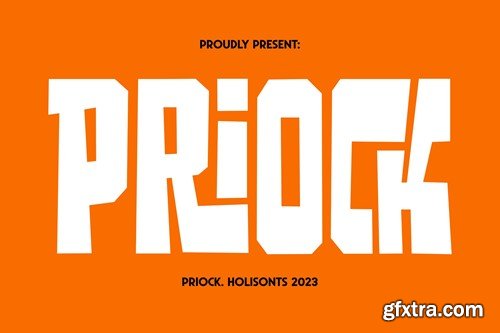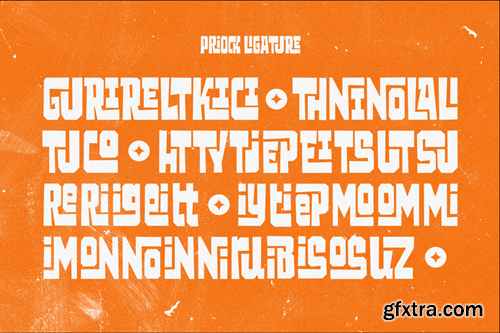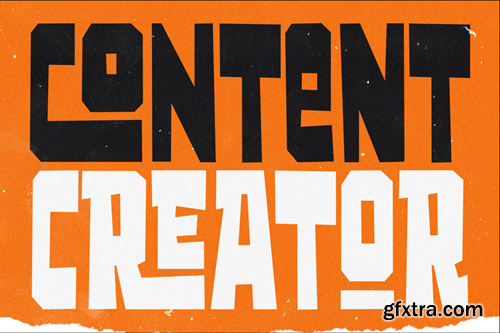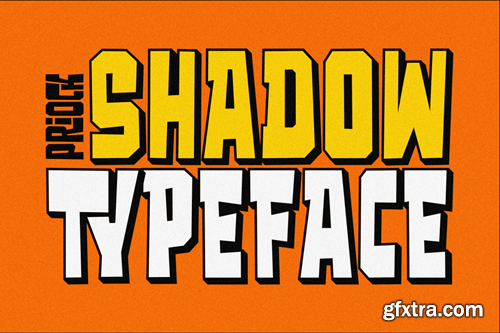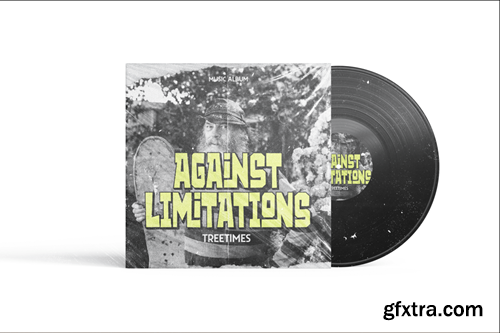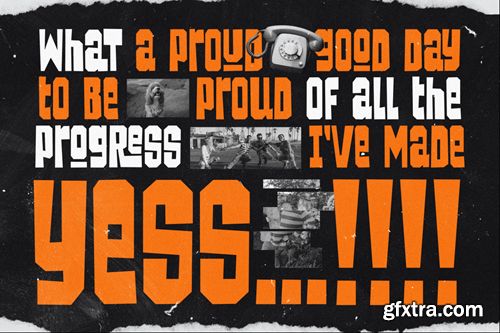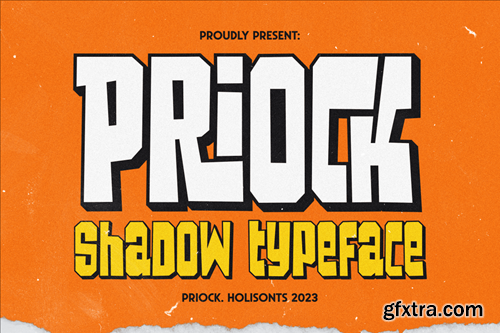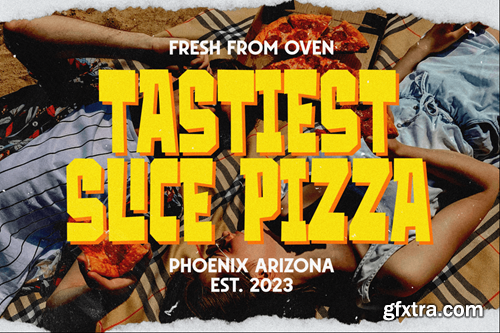
Priock Display Typeface
Priock is an expressive display font with lots of ligatures as features in it which will produce a design that stands out and is unique. The Priock font is also available with a shadow style which will make it easier for you to design if you want to need it.
Features:
• Uppercase
• Lowercase
• Ligature
• Alternates
• Numeral
• Punctuation
• Multilingual Support